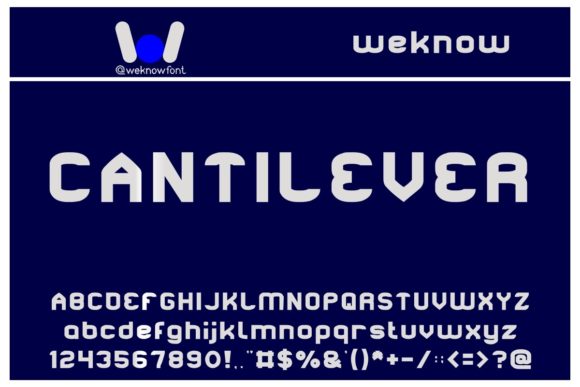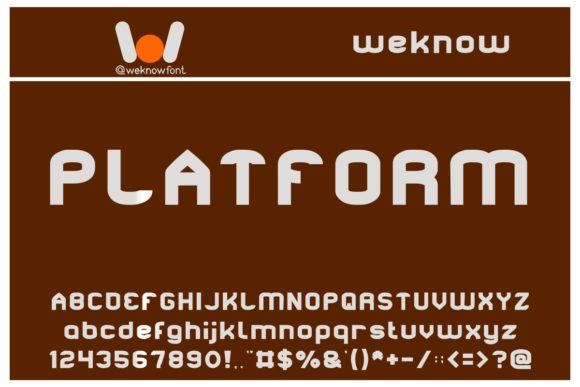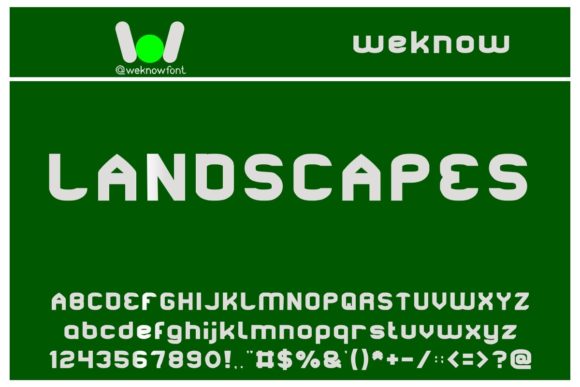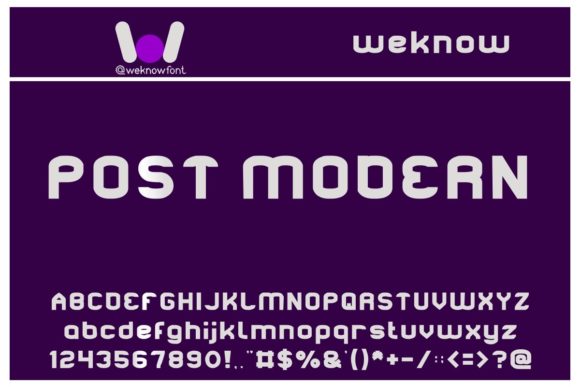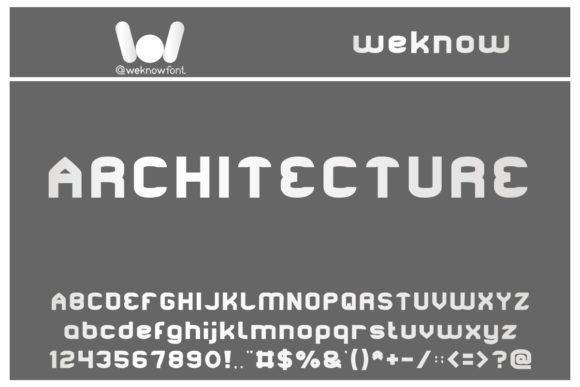
Discover the Unique Charm of Architecture Font: Elevate Your Designs with a Quirky yet Versatile Typeface
Are you tired of using the same old fonts in your designs? Look no further than the Architecture font, a unique and interesting display font that’s sure to add a touch of personality to your projects. A little bit quirky, this font looks incredibly adept on a wide variety of contexts, making it a versatile addition to any designer’s toolkit.
What Makes Architecture Font So Special?
Architecture font is a one-of-a-kind typeface that’s sure to turn heads. Its quirky design makes it perfect for adding a touch of whimsy to your designs, while its versatility ensures that it can be used in a wide range of contexts. Whether you’re designing a logo, a brochure, or a website, Architecture font is sure to make your project stand out from the crowd.
Key Features of Architecture Font
- Unique and quirky design: Architecture font has a distinctive look that’s sure to grab attention.
- Versatile: This font can be used in a wide range of contexts, from logos and brochures to websites and more.
- Display font: Architecture font is perfect for headlines, titles, and other display text.
- Easy to read: Despite its quirky design, Architecture font is surprisingly easy to read, making it perfect for use in a variety of applications.
Why Designers and Crafters Love Architecture Font
Designers and crafters are always on the lookout for new and interesting fonts to add to their toolkit, and Architecture font is a great addition to any collection. Here are just a few reasons why:
- Adds personality to designs: Architecture font’s quirky design makes it perfect for adding a touch of personality to your projects.
- Stand out from the crowd: With Architecture font, you can create designs that stand out from the crowd and grab attention.
- Perfect for creative projects: Whether you’re working on a logo, a brochure, or a website, Architecture font is perfect for creative projects that require a unique and interesting typeface.
How to Use Architecture Font in Your Designs
Using Architecture font in your designs is easy. Here are a few tips to get you started:
- Use it as a display font: Architecture font is perfect for headlines, titles, and other display text.
- Pair it with other fonts: Try pairing Architecture font with other fonts to create a unique and interesting look.
- Experiment with different sizes and colors: Don’t be afraid to experiment with different sizes and colors to find the perfect look for your design.
If you’re looking for a unique and interesting display font to add to your toolkit, look no further than Architecture font. Its quirky design and versatility make it perfect for a wide range of contexts, from logos and brochures to websites and more. With Architecture font, you can add personality to your designs, stand out from the crowd, and create projects that grab attention.